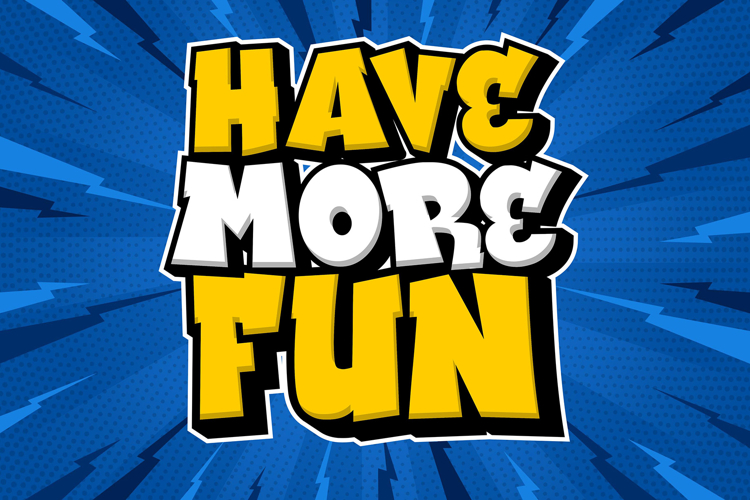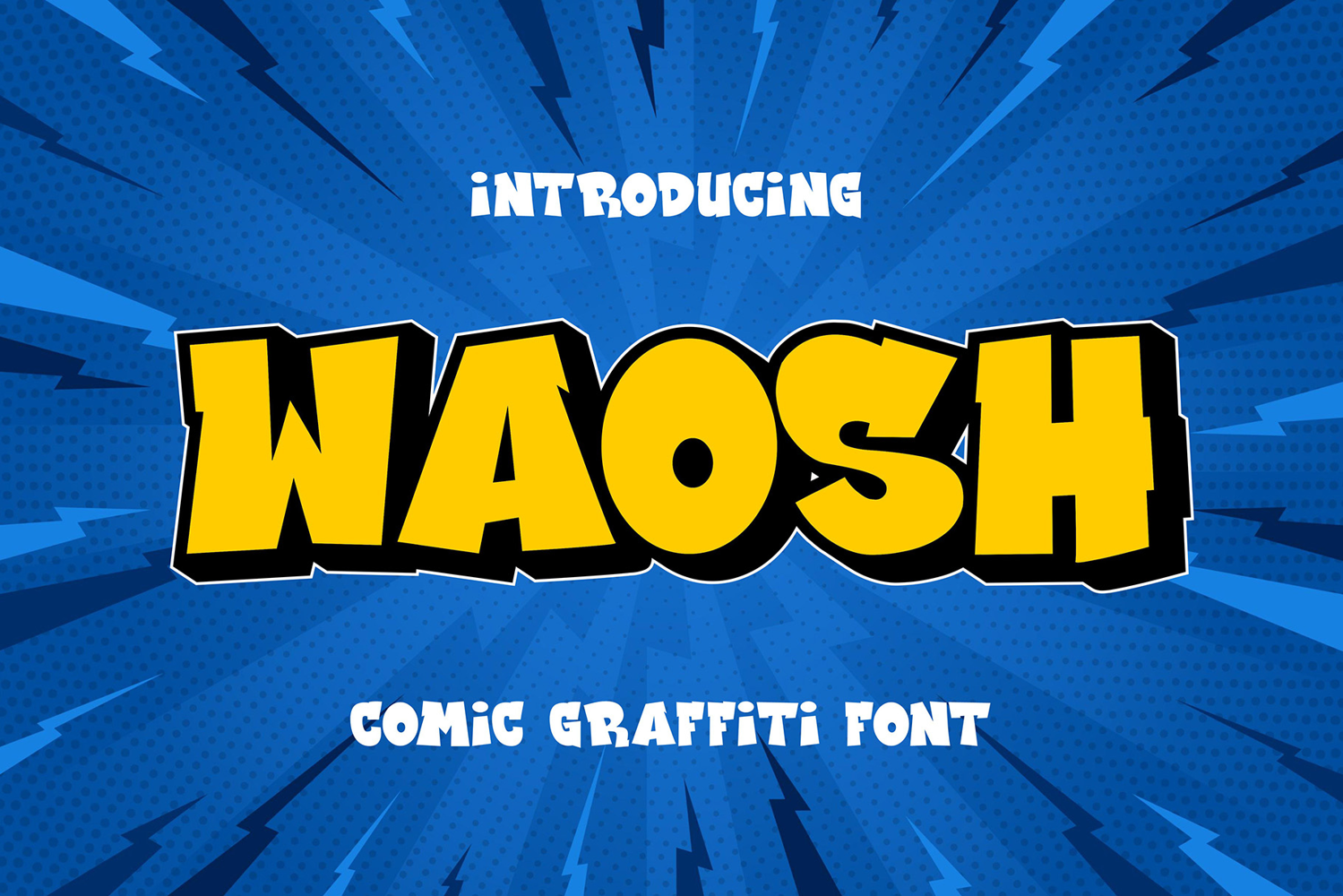
Waosh - 3d Comic Graffiti Font
Introducing Waosh – the ultimate Comic Graffiti Font that bursts with energy and playful charm. Designed to inject a dose of fun and dynamism into your projects, Waosh is perfect for those who seek a bold and vibrant typographic style that stands out in any crowd.
🎨 Vibrant Energy: Waosh brings a lively, animated vibe to your designs with its bold strokes and expressive characters. Each letter is crafted to convey a sense of movement and excitement, making it ideal for comic books, posters, and eye-catching headlines.
🖌️ Playful Aesthetics: With its graffiti-inspired roots, Waosh combines the rebellious spirit of street art with the whimsical nature of comic fonts. This unique blend results in a font that is both edgy and playful, perfect for projects that need a touch of creative flair.
🌟 Versatile Usage: Whether you're designing for print or digital media, Waosh adapts seamlessly to various applications. From children's book covers to urban art branding, this font adds a splash of personality and fun to any project.
💥 Bold Statements: Waosh is designed to make an impact. Its striking appearance ensures your message is loud and clear, capturing attention and leaving a lasting impression. Use it to create bold, standout designs that demand to be noticed.
🖋️ Carefully Crafted: Every character in Waosh is meticulously crafted to ensure clarity and visual appeal. Its dynamic letterforms and unique style make it a versatile choice for designers looking to push the boundaries of conventional typography.
Elevate your designs with Waosh – the Comic Graffiti Font that brings a burst of color, energy, and creativity to every project. Whether you're aiming for a playful, rebellious, or simply eye-catching look, Waosh is your go-to font for making bold statements with a fun twist.